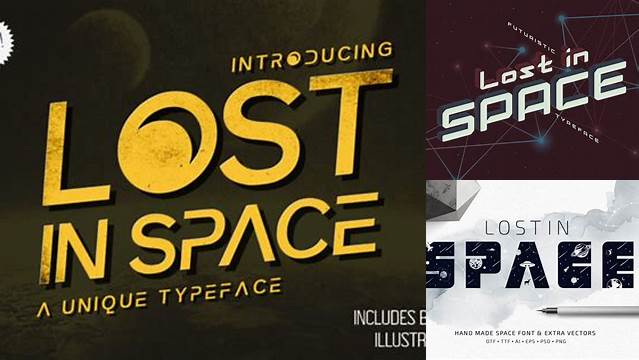
Lost In Space Font: Free Downloads & More!
Hey space enthusiasts! Are you looking to capture the iconic retro-futuristic vibe of the classic "Lost in Space" series? Well, you've landed on the right page! We're diving deep into the world of the Lost in Space font, exploring its history, variations, and where you can download it for free. So, buckle up, and let's blast off!
1. The History of the Lost in Space Font
The Lost in Space font isn't just a typeface; it's a symbol of a bygone era of sci-fi. To truly appreciate it, we need to take a trip back in time. The original "Lost in Space" series, which aired from 1965 to 1968, captivated audiences with its tales of the Robinson family's intergalactic adventures. A key element of the show's visual identity was its distinct font, which exuded a sense of adventure, optimism, and the unknown. The font, characterized by its bold, futuristic design with rounded edges and a slightly condensed form, perfectly captured the essence of the show. It became synonymous with the series and a staple of science fiction aesthetics. Imagine, guys, the sheer impact this font had when it first appeared on screen! It was like a visual promise of the exciting, uncharted territories the show was about to explore. Even now, decades later, the font evokes a sense of nostalgia and wonder, reminding us of a time when space exploration felt both thrilling and within reach. Understanding its history helps us appreciate why it remains so popular and why people are still searching for the Lost in Space font free download.
2. Identifying the Original Lost in Space Font
So, what exactly is the original Lost in Space font? That's the million-dollar question, isn't it? Unfortunately, pinpointing the exact typeface used in the original series isn't as straightforward as you might think. There's some debate and a bit of mystery surrounding it. While it's widely believed that the font was custom-made specifically for the show, some speculate that it might have been a modified version of an existing typeface from that era. Think about it – back in the 60s, digital fonts weren't as readily available as they are today. Custom lettering and hand-drawn fonts were much more common, especially for title sequences and promotional materials. The Lost in Space logo, in particular, with its unique lettering and spacing, suggests a high degree of customization. Key characteristics of the original font include its bold weight, slightly condensed proportions, rounded terminals (the ends of the strokes), and a subtly futuristic feel. The letters have a certain geometric quality, yet they also possess a warmth and approachability that set them apart from purely mechanical fonts. The overall effect is both retro and forward-looking, a perfect reflection of the show's optimistic vision of the future. For those of you keen on identifying the exact font, you might want to delve into vintage font catalogs and compare them with screenshots from the show. It's a bit of a detective game, but the satisfaction of cracking the code would be immense!
3. Similar Fonts and Inspired Typefaces
Okay, so tracking down the exact original Lost in Space font might be a bit of a challenge. But don't worry, guys! The good news is that there are plenty of fonts out there that capture the same retro-futuristic vibe. These Lost in Space inspired typefaces are perfect for projects where you want to evoke a sense of classic sci-fi, whether it's for posters, logos, websites, or even personal creative projects. When looking for similar fonts, pay attention to key characteristics like bold weight, rounded terminals, and slightly condensed letterforms. Fonts with a geometric sans-serif style often come close, but it's the subtle nuances that truly make a font feel like it belongs in the Lost in Space universe. Some popular options include fonts like Headline One, Bebas Neue (though it's a bit more modern), and various rounded sans-serifs. You might even find some custom-made fonts specifically designed to emulate the Lost in Space aesthetic. Exploring online font libraries and marketplaces is a great way to discover hidden gems. Many designers have been inspired by the show and have created their own interpretations of the iconic font. So, while you might not be able to download the exact original, you can definitely find something that comes incredibly close and perfectly suits your needs. And hey, sometimes an inspired typeface can be even better, offering a fresh take on a classic style!
5. Lost in Space Font Generators
Need to quickly create some text in a Lost in Space style? Font generators can be your best friend! These online tools allow you to type in your text and instantly see it rendered in a font that resembles the iconic typeface. While these generators might not give you a downloadable font file, they're fantastic for creating logos, graphics, or headings for web pages or social media. There are many free font generators available online, and some even have specific Lost in Space style options. Just search for "Lost in Space font generator" or "retro sci-fi font generator," and you'll find a bunch of cool tools to play with. The great thing about font generators is their ease of use. You don't need any fancy software or design skills. Simply type, customize (if the generator allows), and download your image. It's a super quick way to get that retro-futuristic look without the hassle of installing fonts or using complex design programs. However, keep in mind that the quality of the output can vary depending on the generator. Some generators may produce pixelated or low-resolution images, so it's always a good idea to experiment with different options until you find one that suits your needs. Also, remember that these generated images are typically for one-time use and might not be suitable for large-scale projects or professional design work. But for personal projects, social media graphics, or just having some fun, font generators are an awesome resource!
6. Using the Lost in Space Font in Design Projects
Okay, so you've found your Lost in Space font (or a close equivalent) – now what? The real fun begins when you start incorporating it into your design projects! This font is incredibly versatile and can add a touch of retro-futuristic charm to a wide range of applications. Think about using it for posters, flyers, website headers, logos, video game titles, book covers, and so much more. The key is to consider the overall aesthetic you're aiming for. The Lost in Space font works particularly well in projects that embrace a vintage sci-fi vibe, but it can also be used in more modern designs to create a sense of contrast and visual interest. Experiment with different color combinations and typography pairings. The font looks fantastic in bold, bright colors like orange, yellow, and blue, which were popular in the 1960s. You can also pair it with other fonts, such as clean, modern sans-serifs, to create a balanced and visually appealing design. When using the font, think about the message you want to convey. Its bold, slightly rounded forms evoke a sense of optimism and adventure, so it's perfect for projects that aim to inspire, excite, or transport the viewer to another world. But remember, less is often more. Overusing the font can dilute its impact. Use it strategically to highlight key elements and create a focal point in your design. And most importantly, have fun and let your creativity soar! The Lost in Space font is a fantastic tool for adding a unique and memorable touch to your work.
7. Lost in Space Font for Logos and Branding
If you're looking to create a logo or branding that screams retro-futuristic, the Lost in Space font is definitely worth considering. Its distinctive style can instantly give your brand a unique and memorable identity. Think about it – the font's bold, rounded forms project a sense of confidence and innovation, while its vintage aesthetic adds a touch of nostalgia and charm. This combination makes it ideal for businesses or projects that want to convey a sense of both forward-thinking and classic appeal. When using the Lost in Space font for your logo, it's important to think about how it will represent your brand. Consider your target audience, your brand values, and the overall message you want to communicate. The font might be a perfect fit for a tech startup with a retro twist, a vintage-inspired clothing brand, or a sci-fi themed entertainment company. To make your logo truly stand out, experiment with different variations of the font. You might want to adjust the letter spacing, kerning, or size to create a unique visual effect. You can also incorporate other design elements, such as a graphic symbol or icon, to complement the font and further enhance your brand identity. Remember, your logo is the face of your brand, so it's essential to get it right. The Lost in Space font can be a powerful tool for creating a logo that's both eye-catching and timeless, but it's important to use it thoughtfully and strategically.
8. Creating a Retro-Futuristic Aesthetic with the Font
The Lost in Space font is more than just a typeface; it's a key ingredient in creating a retro-futuristic aesthetic. This design style, which blends vintage elements with futuristic concepts, is incredibly popular right now, and the font can help you nail that look perfectly. Think about how the original "Lost in Space" series presented the future – it was a world of sleek spaceships, bold colors, and optimistic ideals. The font played a crucial role in conveying this vision, and you can use it to achieve the same effect in your own projects. To create a retro-futuristic design, consider pairing the Lost in Space font with other elements that evoke the same era. Think about using bright, saturated colors like teal, orange, and yellow, geometric patterns, and illustrations with a mid-century modern style. You can also incorporate vintage textures and effects, such as grain or subtle imperfections, to add a touch of authenticity. When using the font, pay attention to the overall composition of your design. Consider the layout, spacing, and hierarchy of elements. The Lost in Space font works well for headlines, titles, and logos, but it can also be used for body text in certain situations. Just make sure it's legible and doesn't overwhelm the design. And remember, the key to a successful retro-futuristic design is balance. You want to capture the spirit of the past while still creating something that feels fresh and modern. The Lost in Space font can be your secret weapon in achieving this balance, adding a touch of timeless cool to your projects.
9. Lost in Space Font and Web Design
Want to give your website a retro-futuristic makeover? The Lost in Space font can be a fantastic choice for web design, but it's important to use it strategically to ensure a positive user experience. While the font's bold and distinctive style can add personality and visual interest to your site, it's crucial to consider factors like readability and page load times. Using the Lost in Space font for headlines and headings can be a great way to grab visitors' attention and establish a strong visual identity. However, using it for large blocks of body text might not be the best idea, as its unique letterforms can be tiring to read for extended periods. In these cases, consider pairing it with a more legible sans-serif or serif font for the main content. When incorporating the font into your web design, think about the overall color scheme and layout. A retro-futuristic website might feature bright colors, geometric shapes, and vintage-inspired illustrations. The font can be a key element in tying these elements together and creating a cohesive visual style. It's also important to optimize the font for web use. Use web-friendly font formats like WOFF or WOFF2, and consider using CSS font-display properties to control how the font loads and displays on different browsers. And remember, user experience is paramount. Make sure your website is easy to navigate, loads quickly, and looks great on all devices. The Lost in Space font can be a valuable asset in creating a memorable website, but it's just one piece of the puzzle. A well-designed website combines aesthetics with functionality to create a positive experience for visitors.
10. Pairing the Lost in Space Font with Other Typefaces
Choosing the right font pairing is crucial for creating visually appealing and effective designs. While the Lost in Space font is a statement piece on its own, combining it with other typefaces can elevate your design and create a more sophisticated look. The key to successful font pairing is to find fonts that complement each other without competing for attention. Think about contrast – you might want to pair the Lost in Space font's bold, rounded forms with a cleaner, more geometric sans-serif font. This creates a visual hierarchy and ensures that your text is easy to read. For example, you could use the Lost in Space font for headlines and titles, and then use a font like Montserrat or Open Sans for body text. These fonts are clean and legible, and they won't clash with the Lost in Space font's distinctive style. Another approach is to pair the Lost in Space font with a classic serif font. This can create a more vintage or elegant look, but it's important to choose a serif font that's not too ornate or fussy. A simple, well-designed serif like Merriweather or Roboto Serif can work well. When experimenting with font pairings, pay attention to the overall tone and message of your design. The fonts you choose should reflect the personality of your brand or project. And don't be afraid to try different combinations until you find something that feels just right. There are many online resources and tools that can help you with font pairing, so take advantage of them. With a little experimentation, you can find the perfect font pairings to make your designs truly shine.